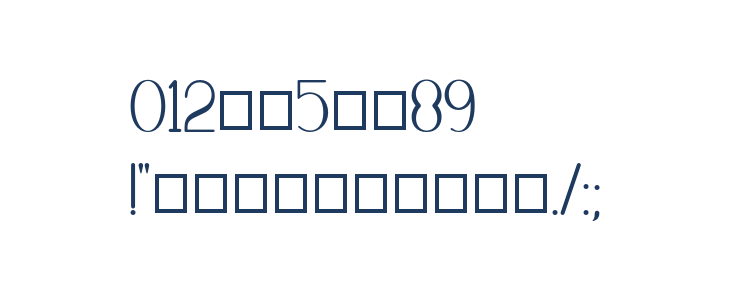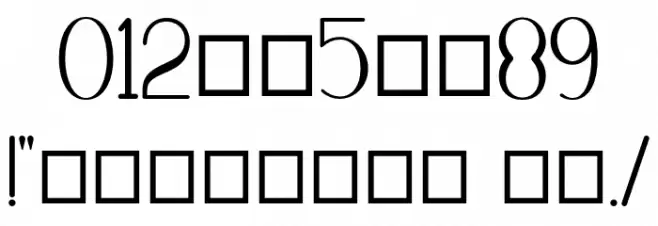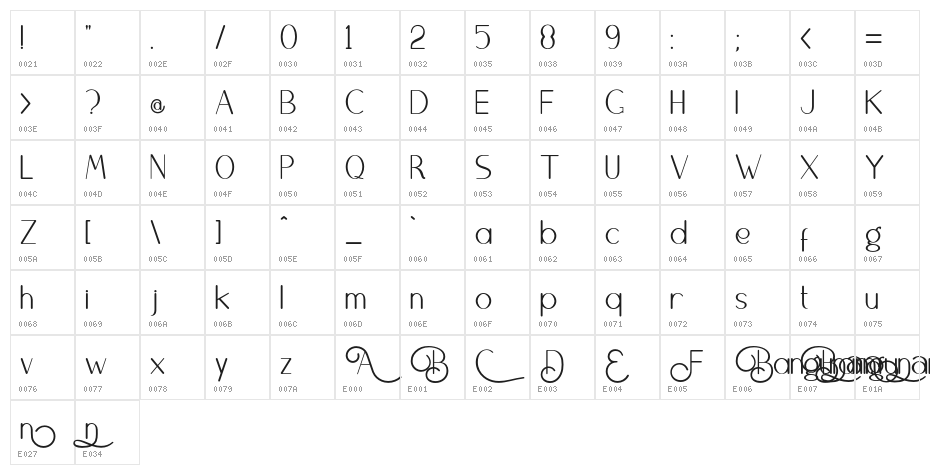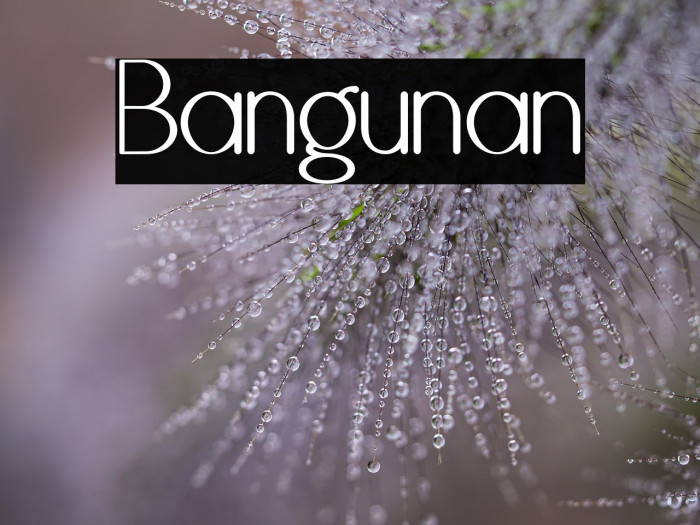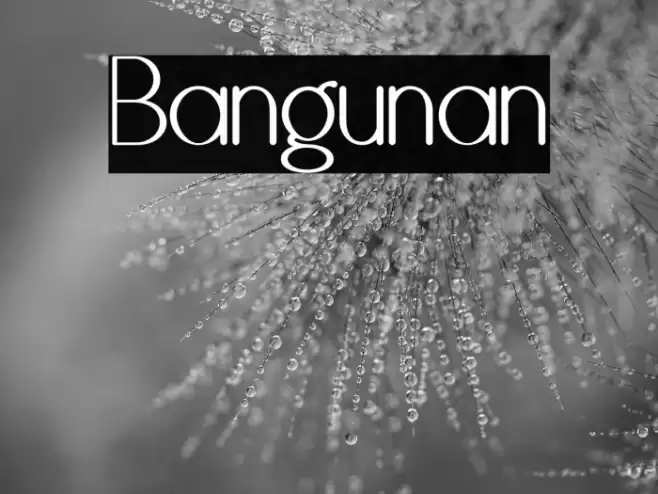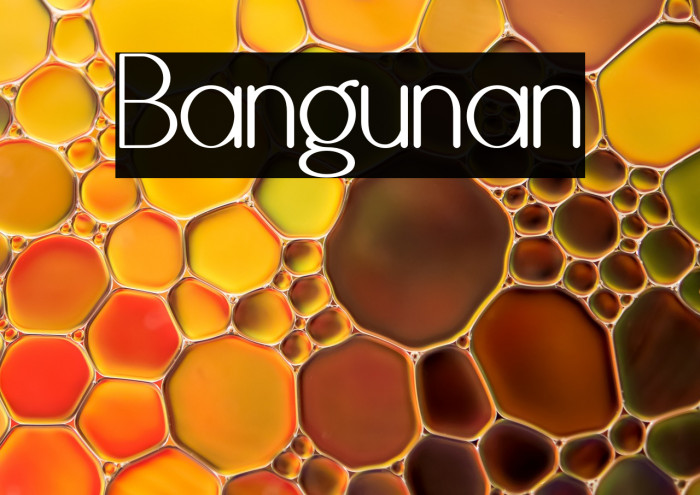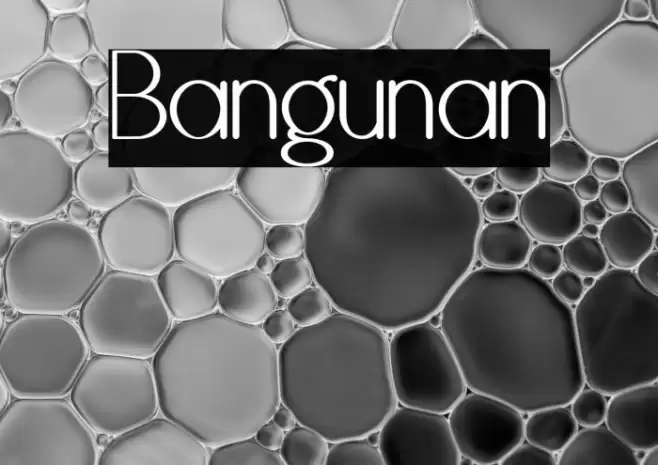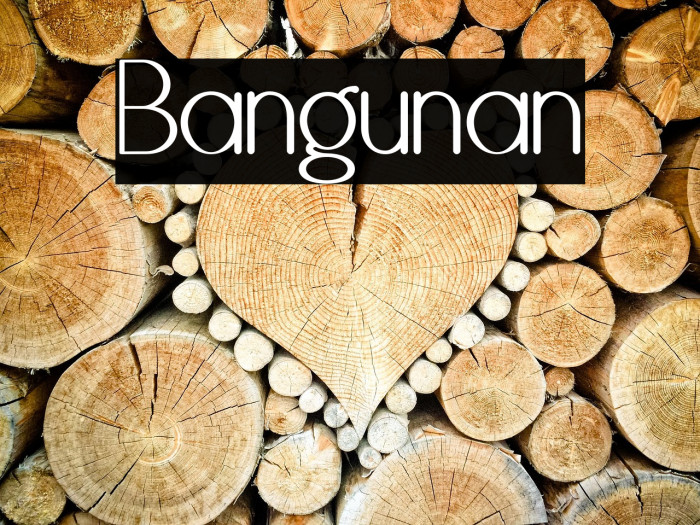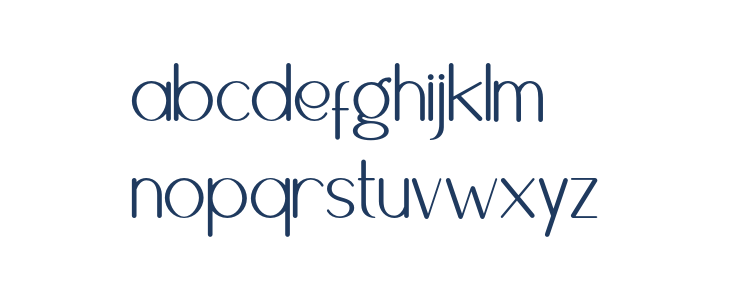
Bangunan Font
Bangunan Description
This font features a modern and minimalist design with clean, geometric lines. The uppercase letters are tall and slender, with a consistent stroke width that gives a uniform appearance. The lowercase letters maintain the geometric style, with rounded edges that add a touch of softness to the overall look. The numerals are distinct and easy to read, following the same geometric principles. Special characters are included, maintaining the cohesive design. This font is ideal for projects that require a contemporary and sleek aesthetic.